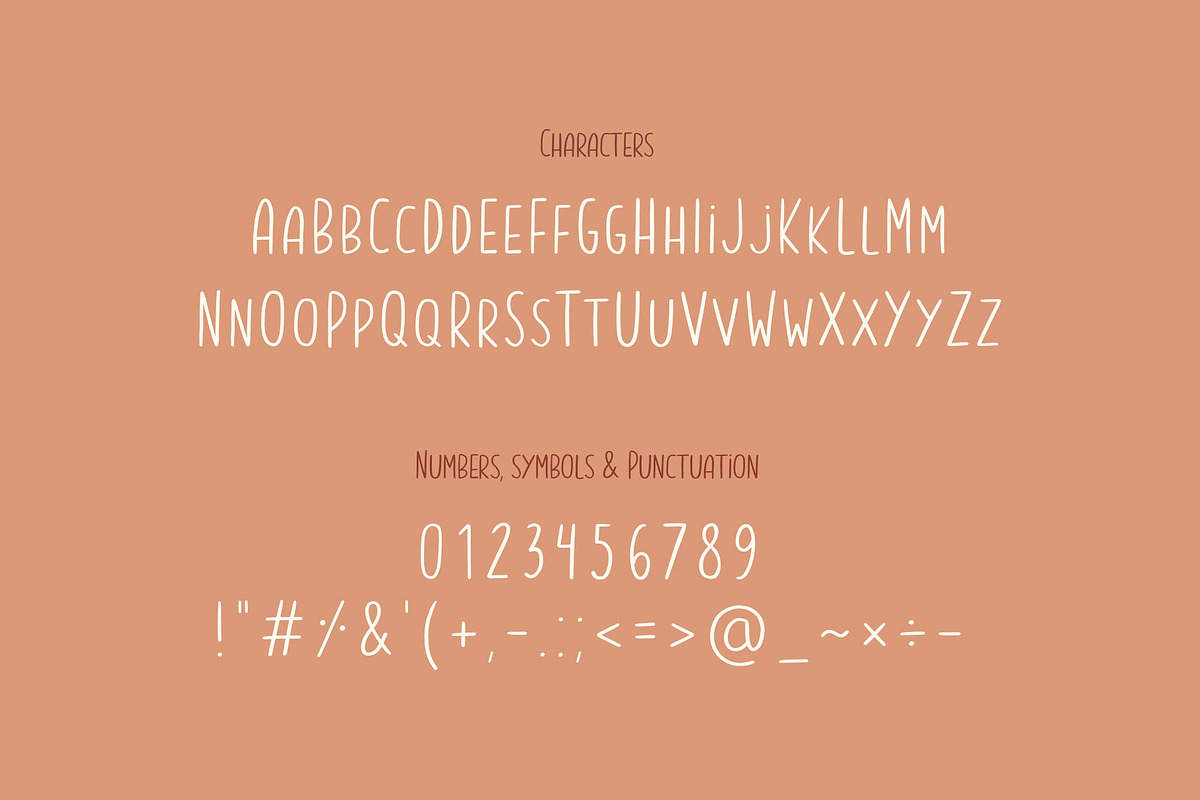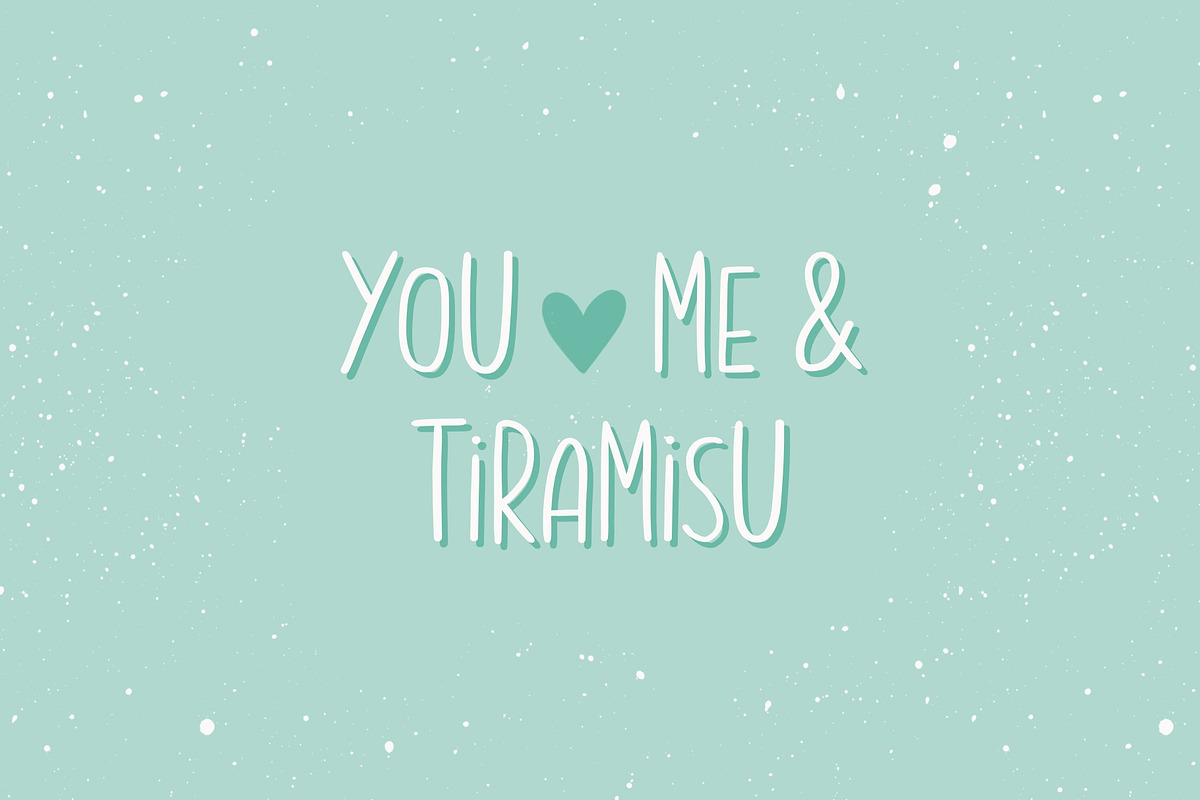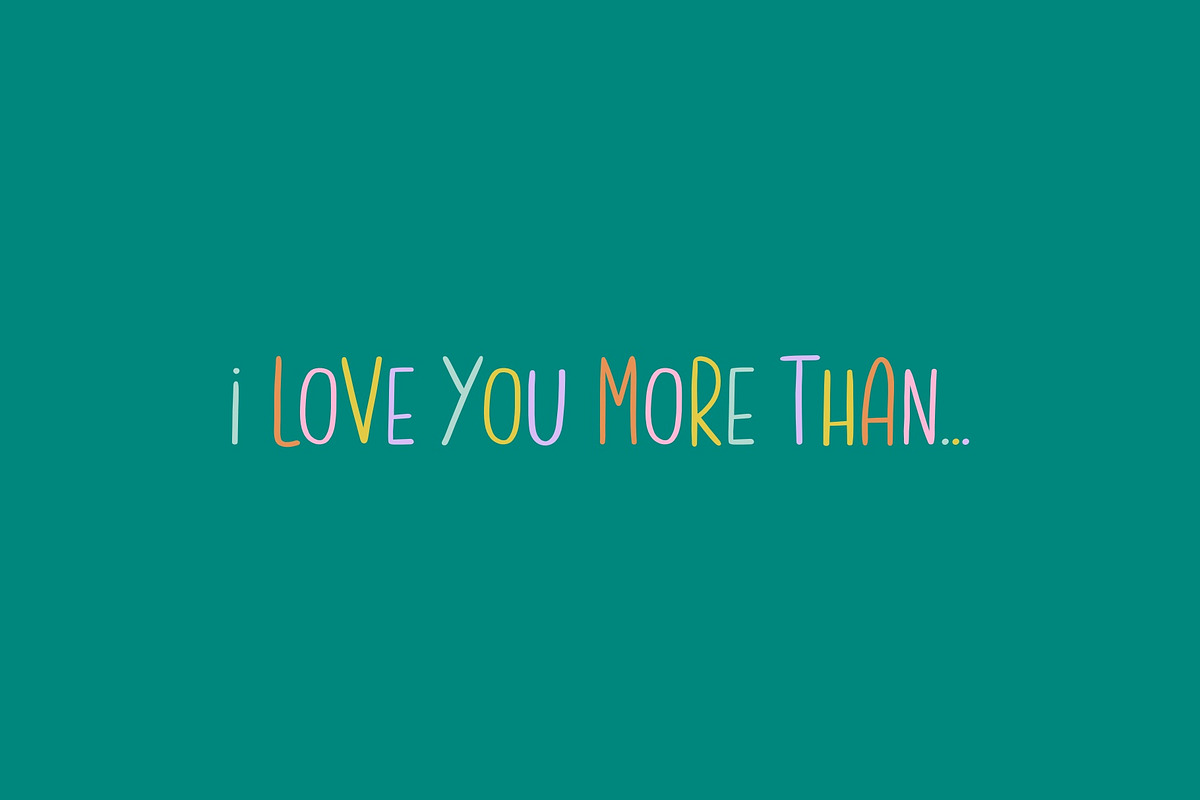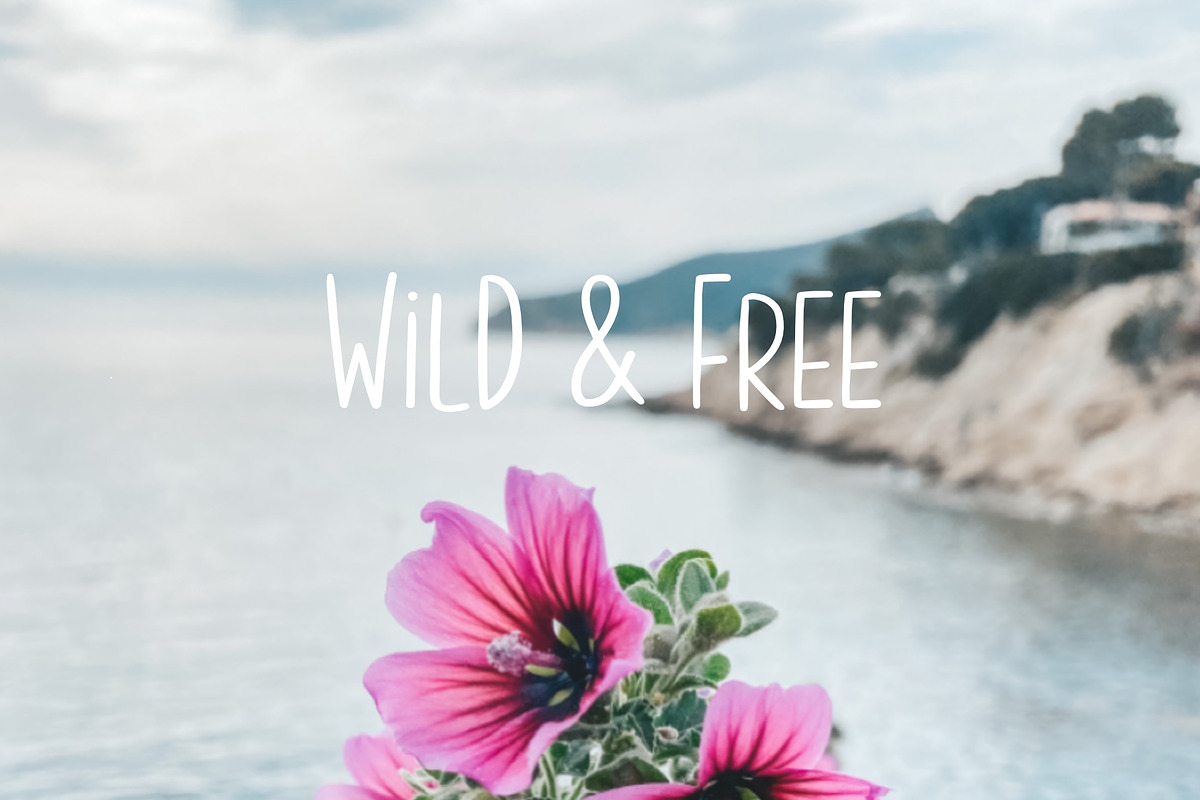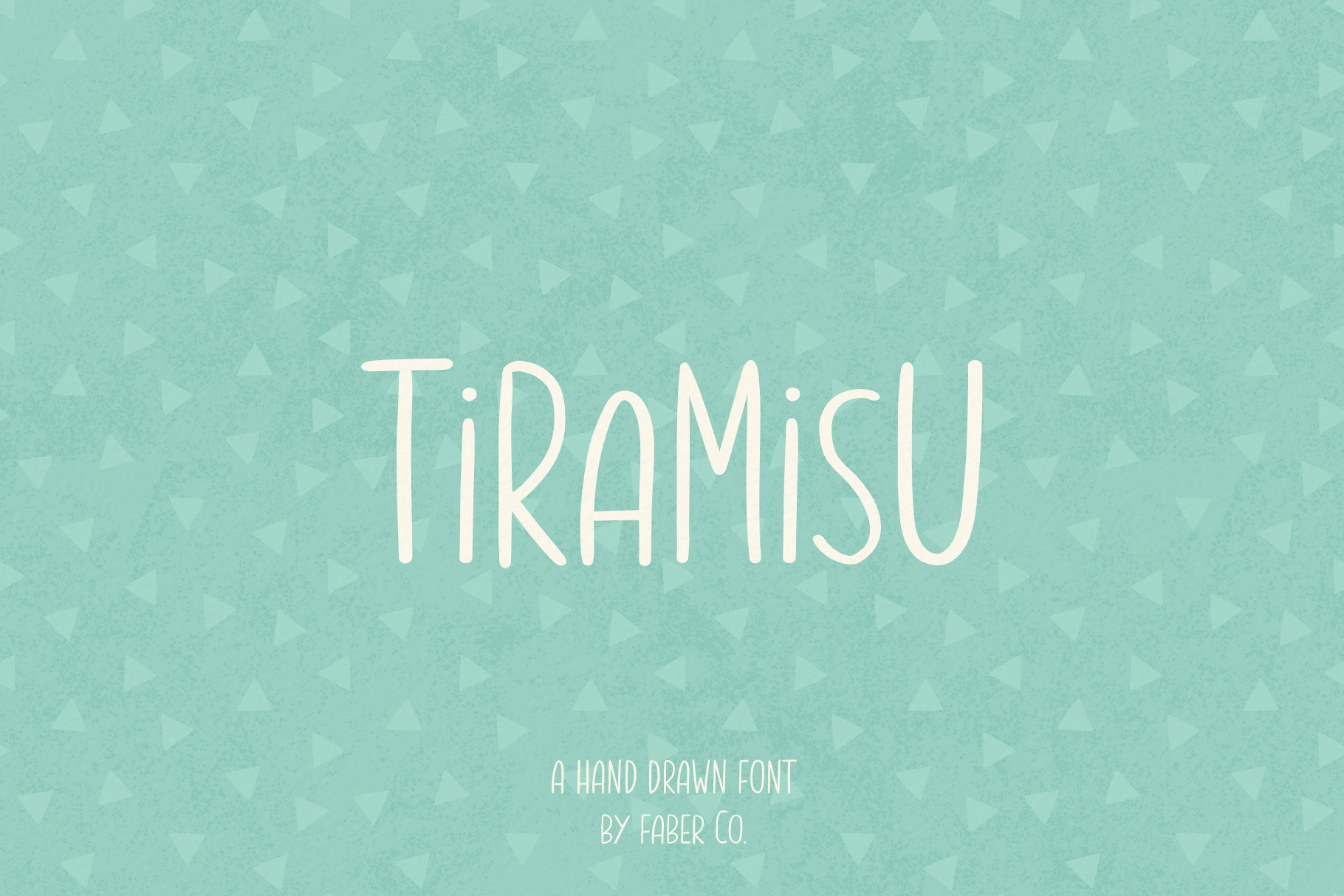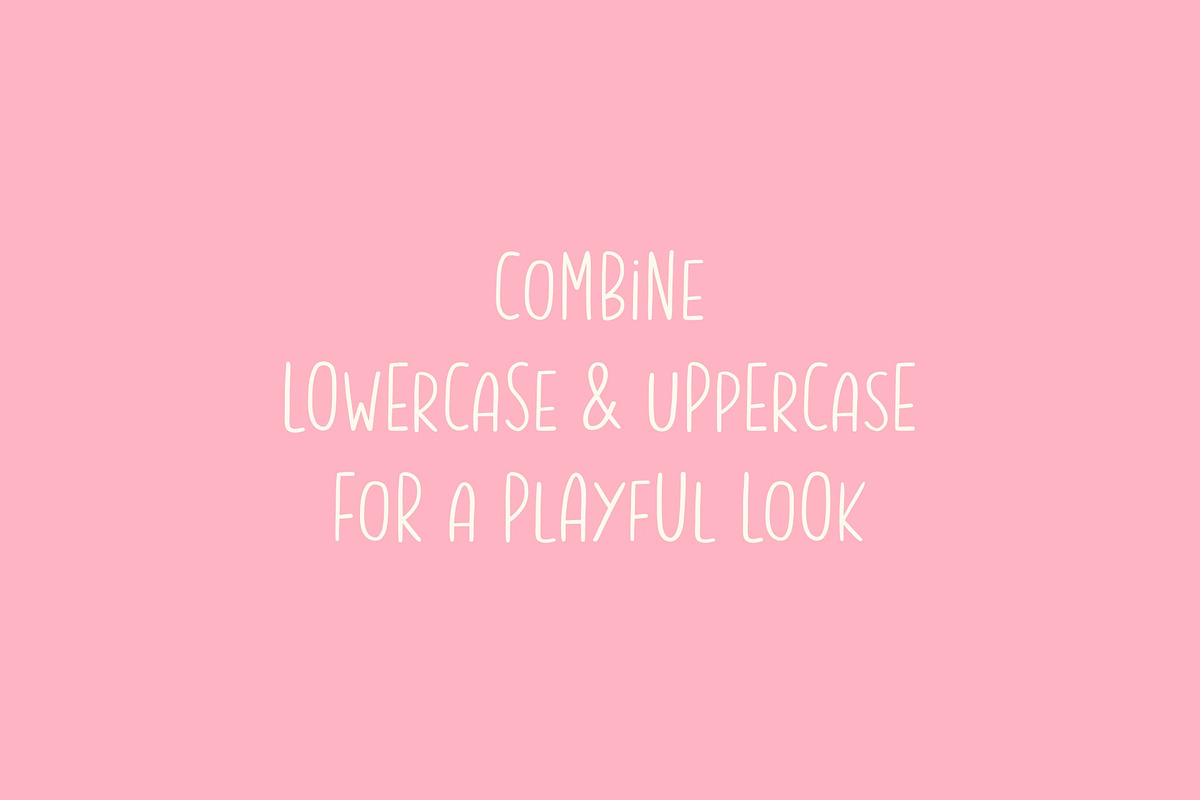
Tiramisu | Handwritten Font
TIRAMISUis a thin, cute and personal font in a hand-drawn style. It’s perfect to add a personal and playful touch to your illustrations, greeting cards, packaging, quotes, and much more.
This is a font with characters, punctuation, and symbols.